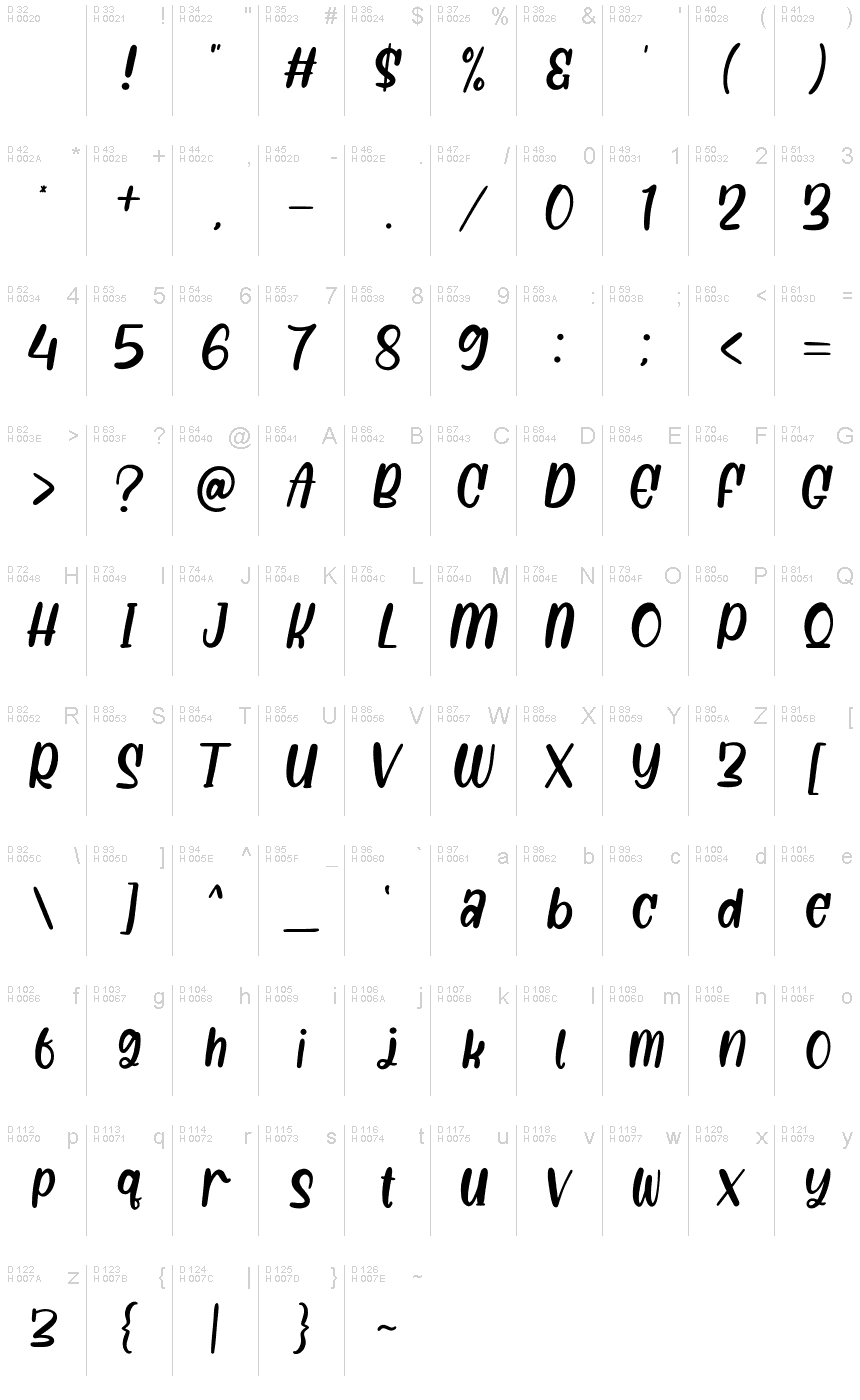
Loopglasy
Loopglasy is a delightful semi-bold font designed by Qwrtype Foundry. With its playful handwritten style, this font is perfect for projects that require a touch of fun and creativity. Use it to add personality to your social media graphics or bring a whimsical feel to your website's headlines. Its unique design also makes it suitable for children's book illustrations, invitations, and greeting cards. Loopglasy's versatility allows it to bring life and energy to any project you choose!